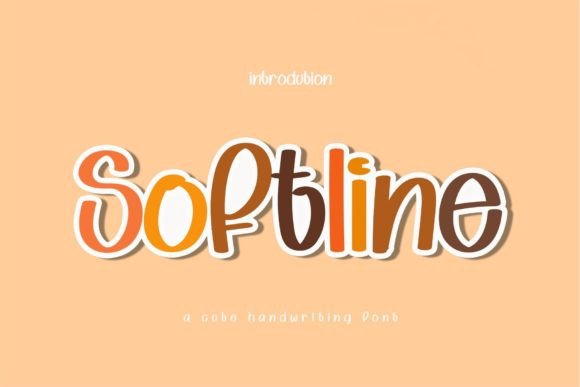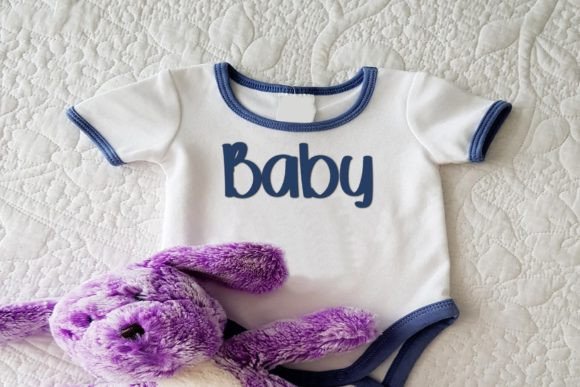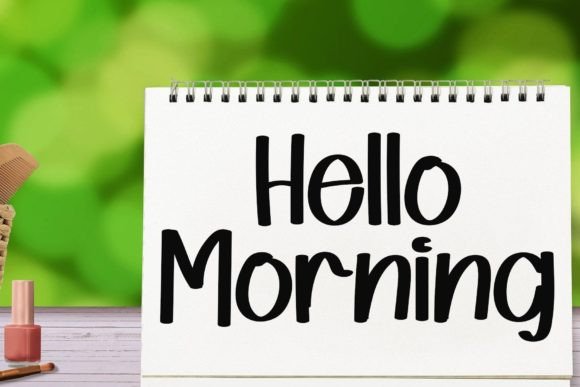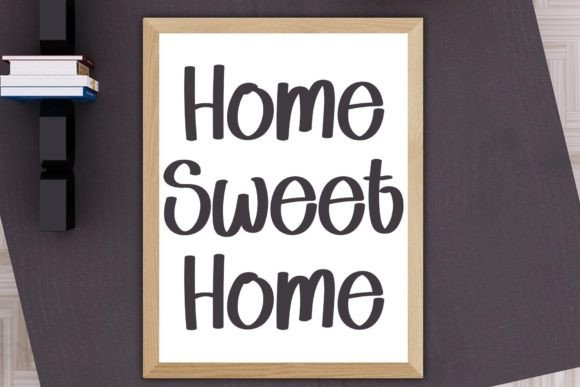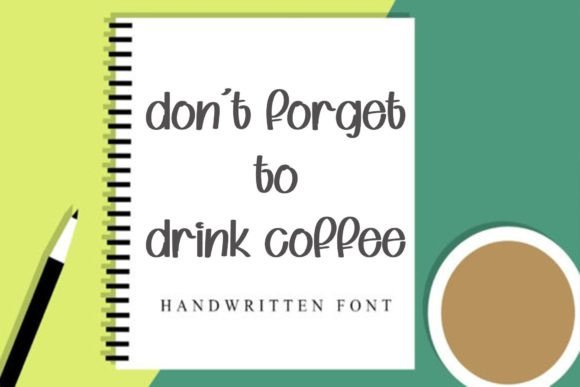
Softline Font
About Softline Font
Softline is a captivating handwritten font that exudes enchantment and charm. Its elegant and flowing characters make it a versatile choice suitable for a wide spectrum of applications, ranging from greeting cards to headlines. This font is guaranteed to infuse a romantic and intimate feel into your next project, creating a visually appealing experience for your audience.
The graceful curves and gentle strokes of Softline create a sense of delicacy and sophistication, making it ideal for projects that require a touch of romance. When used in greeting cards, love letters, or wedding invitations, Softline adds a heartfelt and intimate vibe, enhancing the emotional impact of your messages. Its enchanting quality captures the essence of romance, making your words come alive with passion and tenderness.
Softline’s versatility extends to various design contexts. Whether you’re working on branding materials, posters, social media graphics, or any other visual communication, this font seamlessly integrates to add a touch of elegance. Its fluidity and charm make it equally suitable for headlines, ensuring that your key messages are presented with style and grace.
The font’s enchanting handwritten style creates a unique visual identity, making your designs stand out from the ordinary. Softline’s ability to evoke a sense of romance and sophistication makes it a valuable asset for designers looking to create memorable and captivating experiences for their audience.
Incorporating Softline into your next project allows you to tap into its enchanting aura, transforming your designs into romantic and visually appealing creations. Whether you’re crafting heartfelt messages, designing branding elements, or creating captivating headlines, Softline will add a touch of magic and romance, making your project truly enchanting and unforgettable.